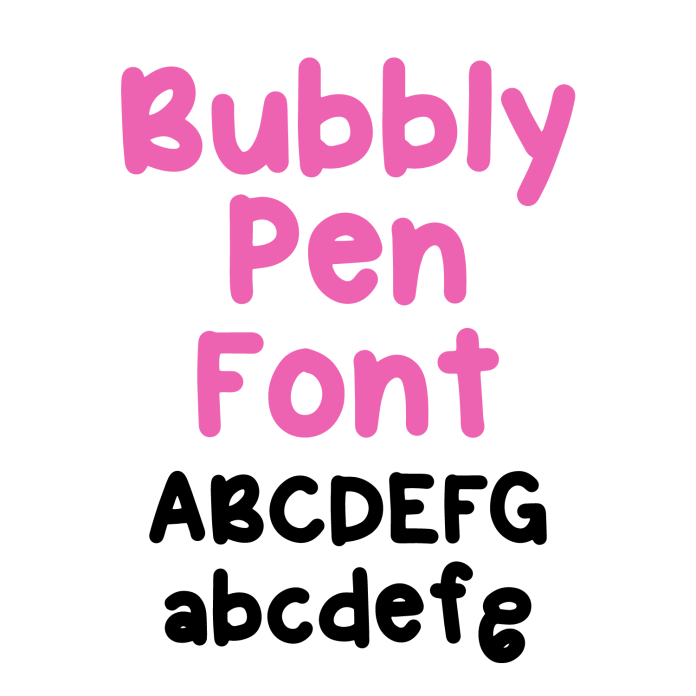
Say hello to Bubbly Pen Font—a cheerful and playful rounded font that brings a fun, friendly vibe to all your crafting projects! With its soft edges and handwritten charm, Bubbly Pen is perfect for stickers, greeting cards, labels, wall art, and custom gifts. This versatile handwritten typeface is designed for smooth, clean cuts with your cutting machine, making it great for both vinyl projects and printables. Whether you're personalizing home decor or designing digital artwork, Bubbly Pen adds warmth and personality to every design. Download Bubbly Pen Font today and make your next project pop with playful style!